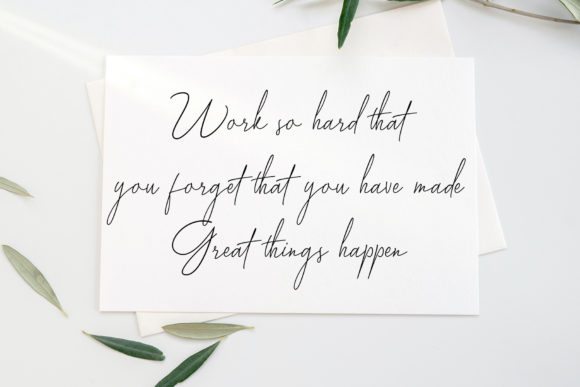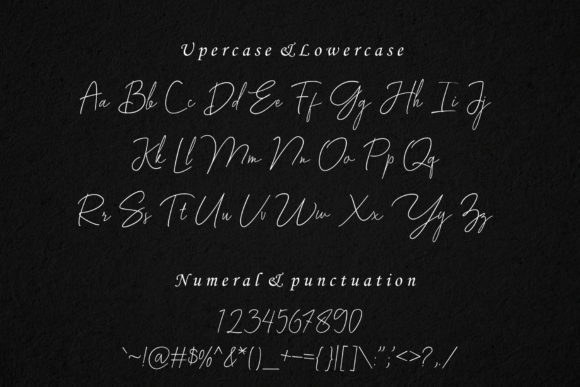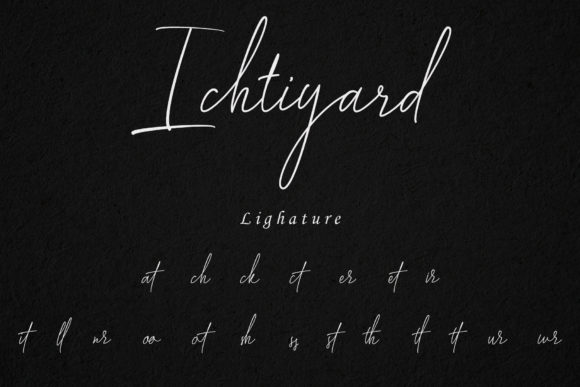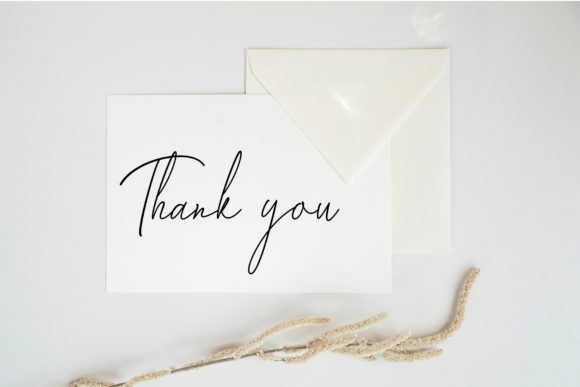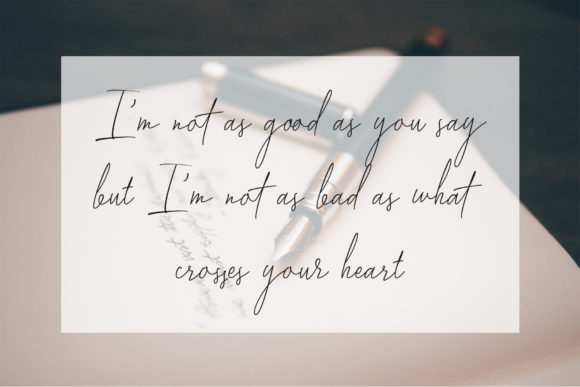
Introduction to Ichtiyard Font
Ichtiyard is a beautiful handwritten font, expertly designed to become a true favorite.
It was made by hand in advance, resulting in a very natural aesthetic Suitable for product advertisements, packaging, and many more, this font is perfect for those who love the beauty of handwriting.
Key Features of Ichtiyard Font
Why Choose Ichtiyard Font?